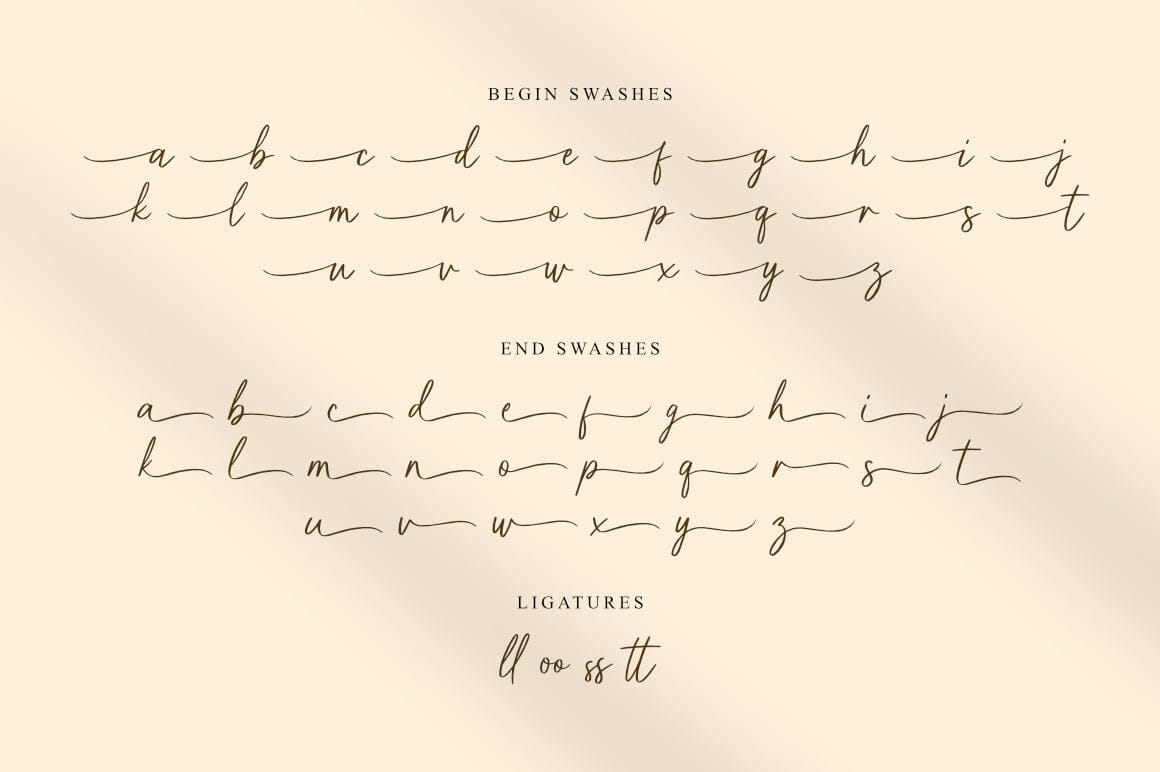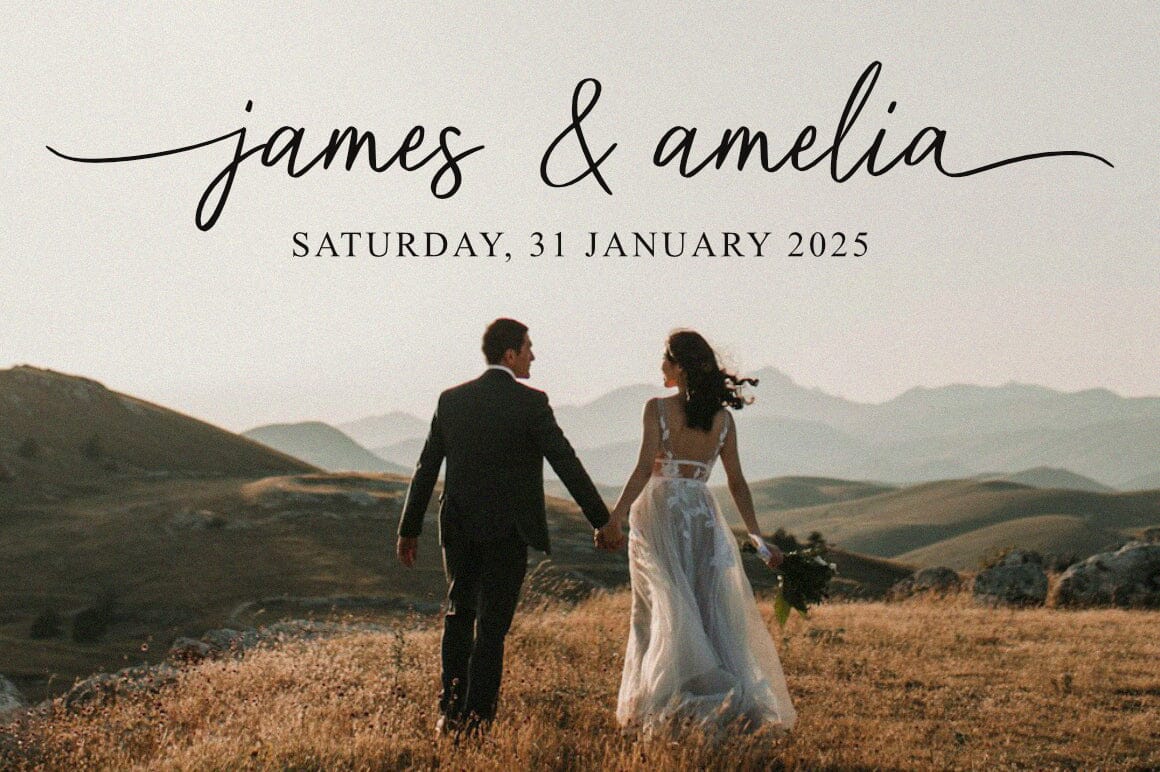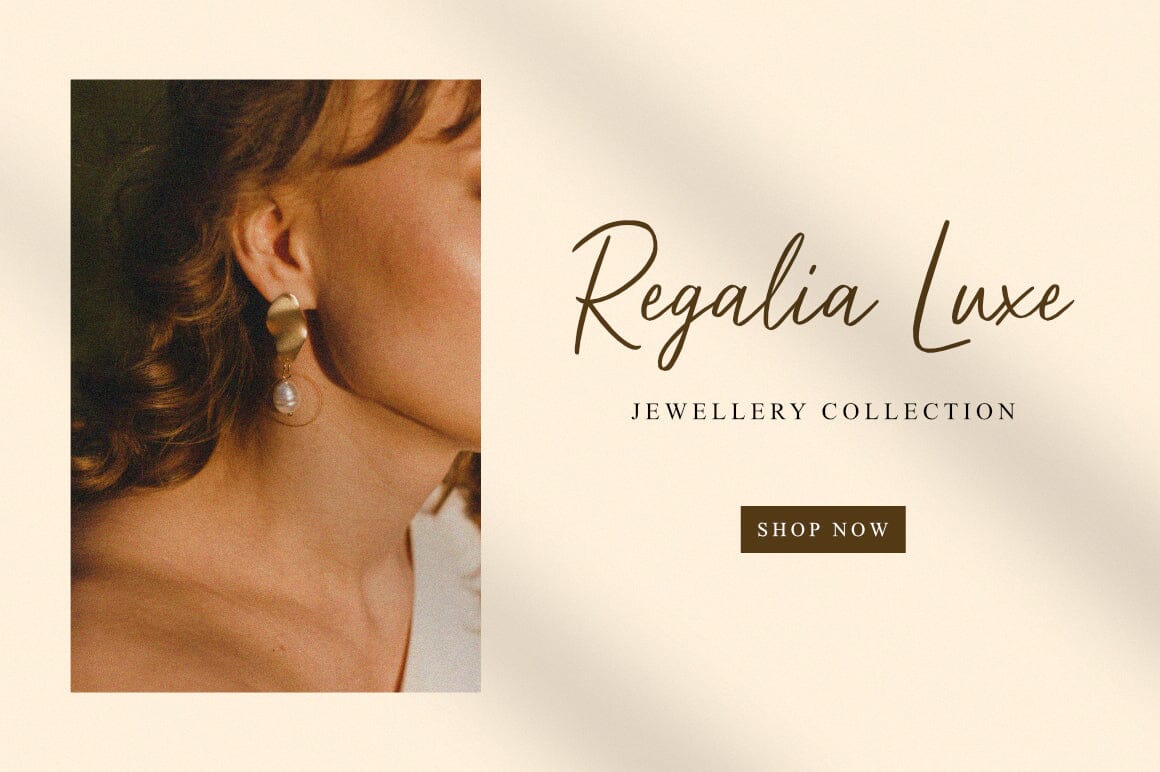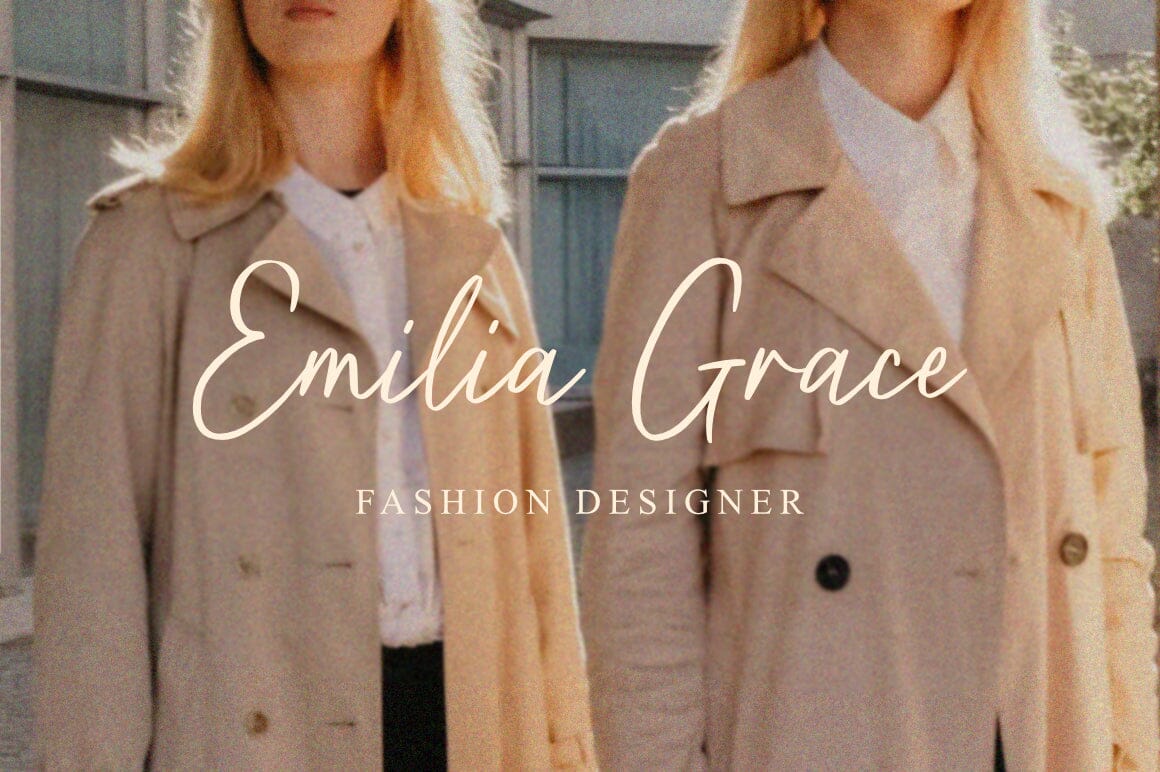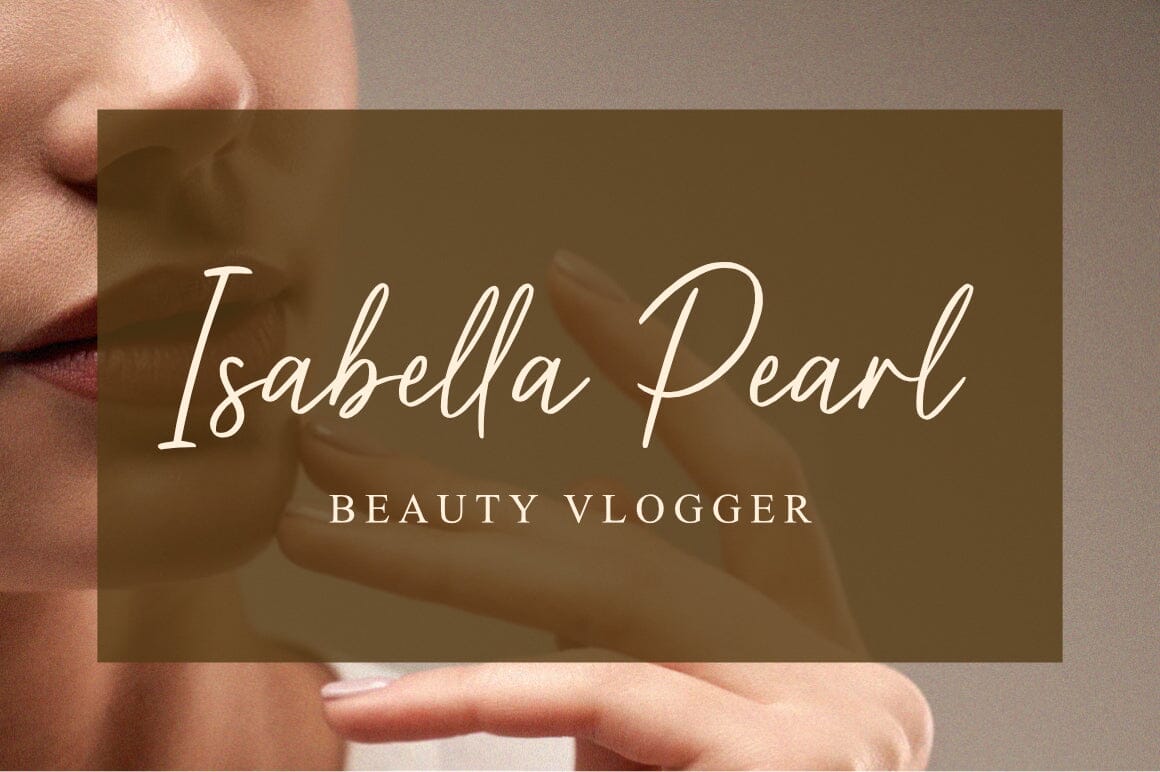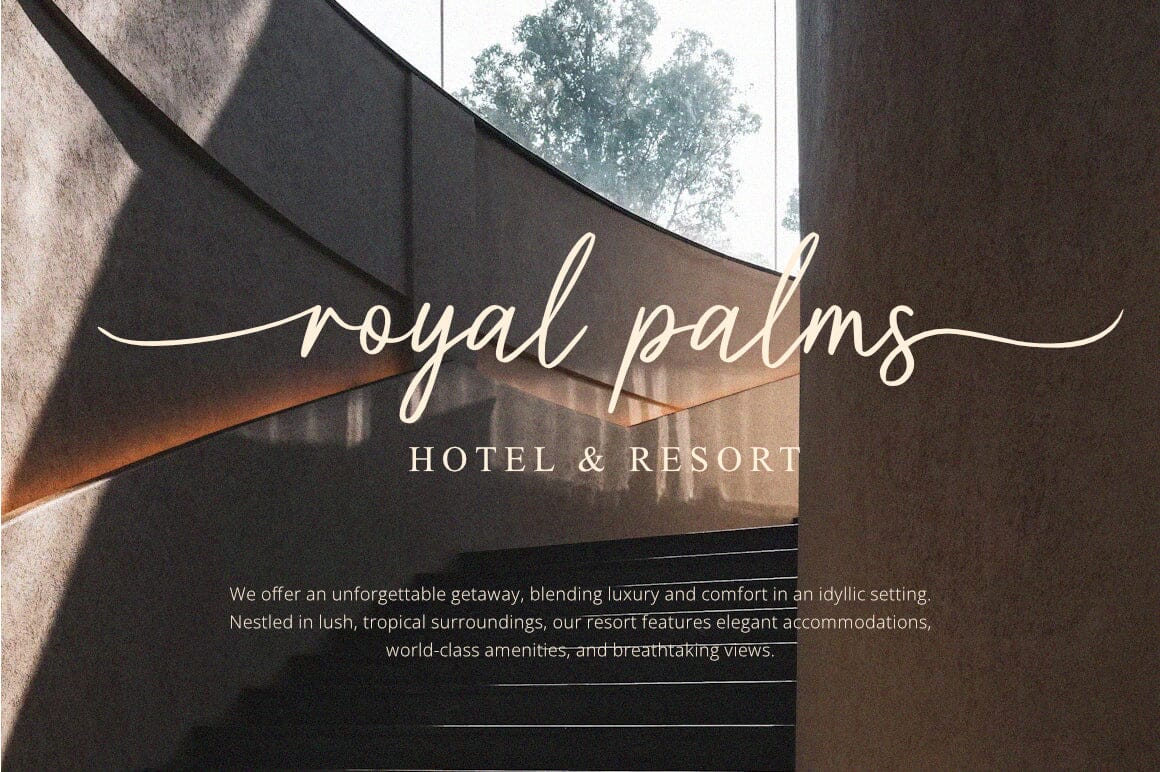
Purelines – Calligraphy Font
About Purelines – Calligraphy Font
Purelines is a modern calligraphy with elegant style. This font is perfect for branding, invitations, logos and more. Purelines Features: – Uppercase & lowercase – Numbers and symbols – Multilingual characters – Swashes & ligatures – Files TTF/OTF/WOFF Thank you for your purchase!